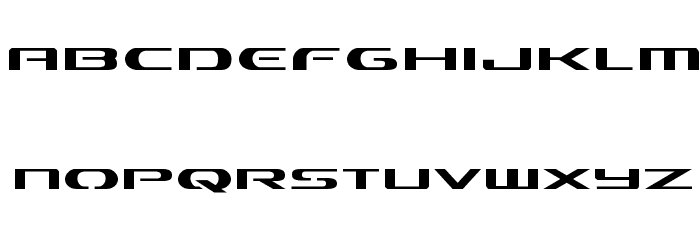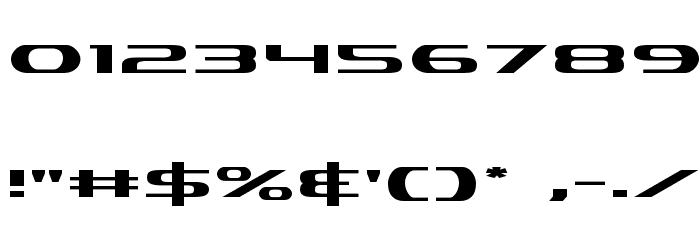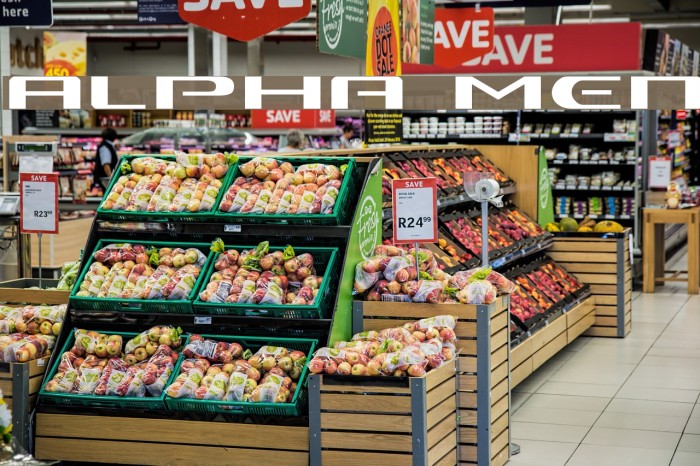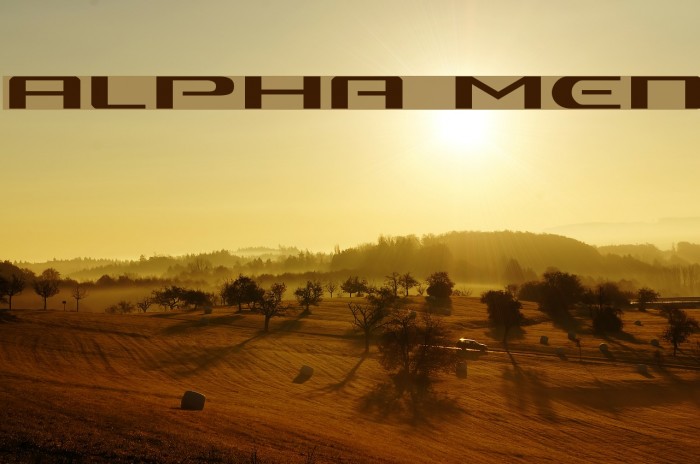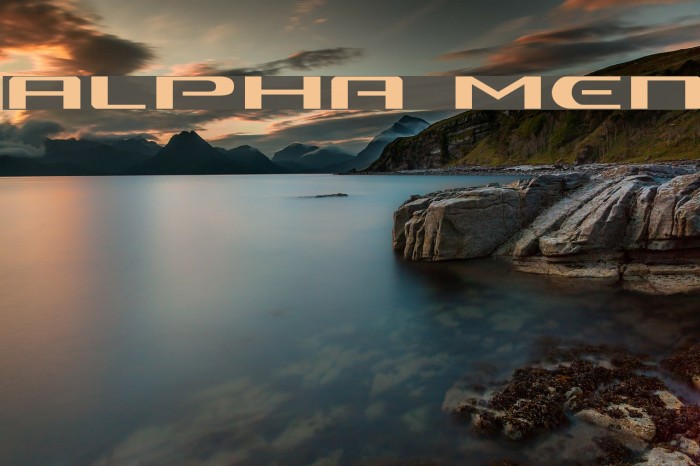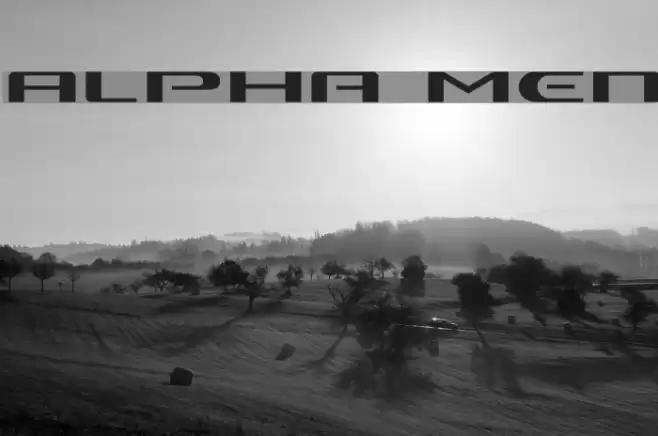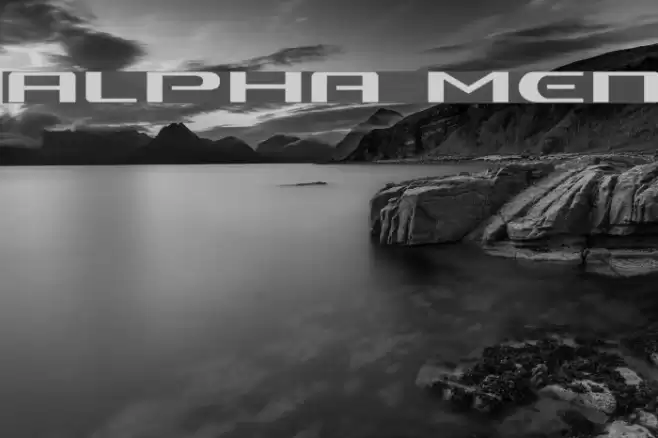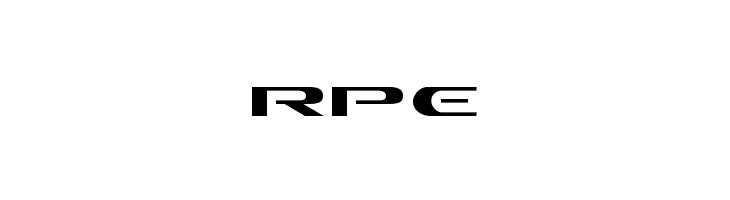
Alpha Men Font
This font features a futuristic and geometric design, characterized by its bold and angular letterforms. The uppercase letters are distinct with sharp edges and a consistent stroke width, giving it a modern and sleek appearance. The lowercase letters maintain the same geometric style, ensuring uniformity across the typeface. Numerals are designed to match the boldness of the alphabet, making them easily legible and visually appealing. The special characters are crafted with the same attention to detail, integrating seamlessly with the overall design. This font's style is ideal for projects that require a contemporary and cutting-edge look.
A futuristic, geometric font with bold, angular letterforms.
- Proposed Projects: Ideal for technology branding, sci-fi movie posters, video game titles, and modern advertising campaigns.